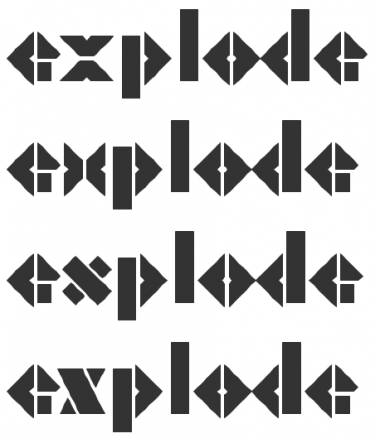
ran tan
intaglio
...actually quite a few of the glyphs are a bit ropey. anyone is welcome to download it and fix it.
A few suggestions for ya. :-)
yEAH! I really like the diagonal cross form. Why didn't I think of that!
Great font, + all of nippa's look super cool. This is a great, great font. 10/10.
I like the diagonal "x" too. It cracks a little bit the cadence of the next glyphs. Great apport from a master to another one. Congrats!
Great work! I like nippa's last option the best.
It's funny how the cap A looks okay to me but the V doesn't. I don't really understand how these things work. Learning all the time.
On second thoughts... neither of them look any good.